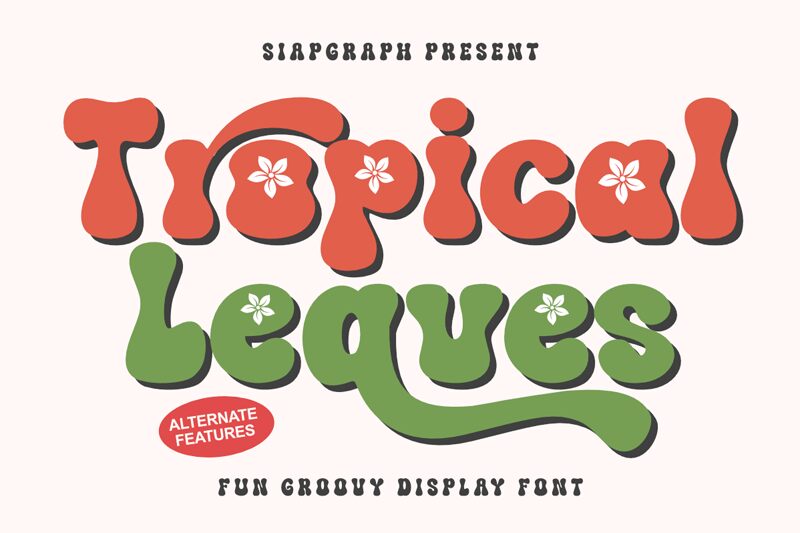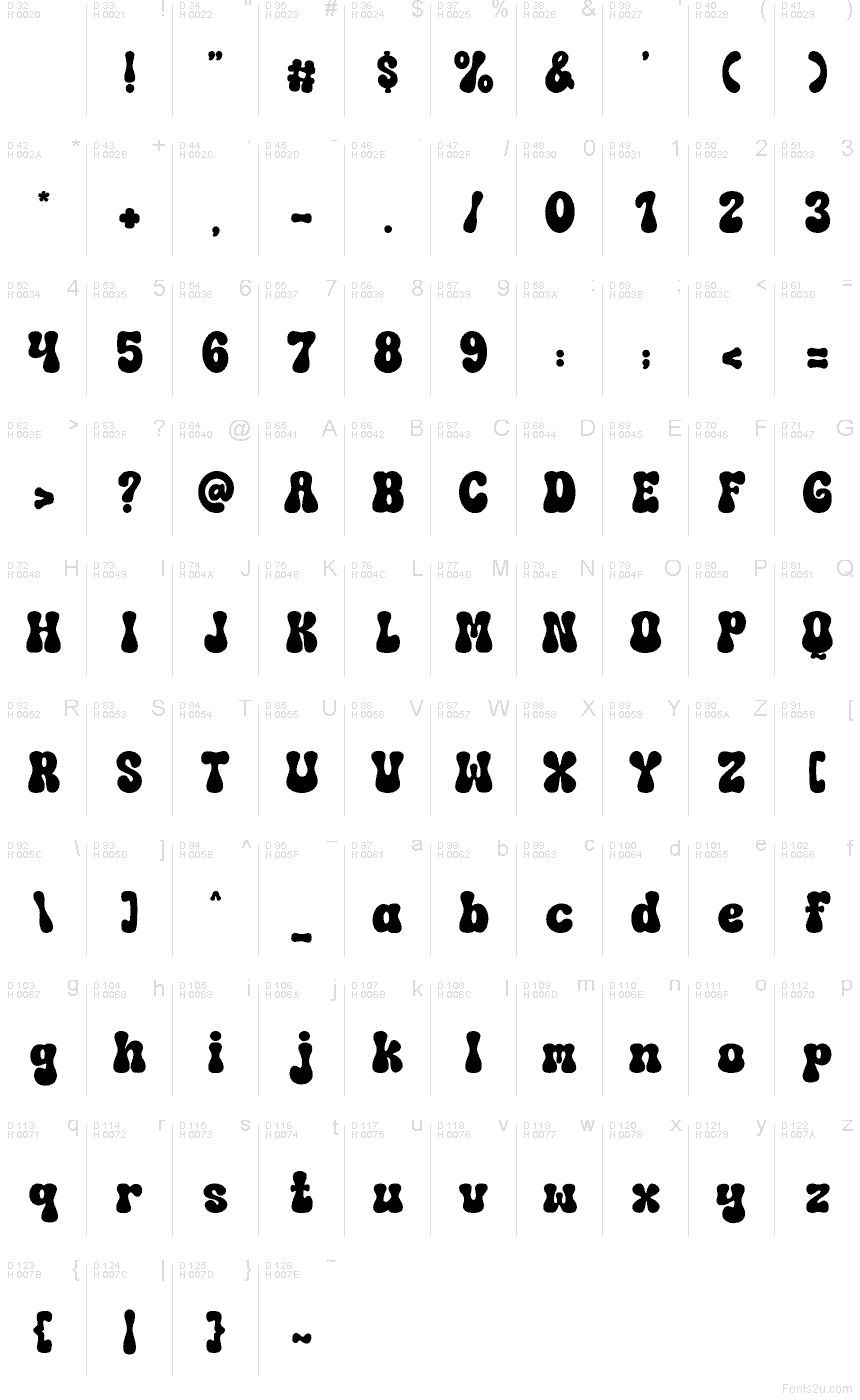
Tropical Leaves Regular
Tropical Leaves, a free groovy display font by SiapGraph, uses an uneven bubble silhouette that feels poured rather than drawn. The swelling bottoms, pinched joins, and soft drooping rhythm give the lettering a mellow 1970s poster character instead of a neat geometric one.
That lopsided mass makes sense on album art, festival flyers, cafe branding, product packaging, and large social headers where the shapes can do most of the talking. Short titles and logo-style wordmarks benefit most, since the font's rounded wobble gives brief text a slow, psychedelic presence that would get lost in longer settings.